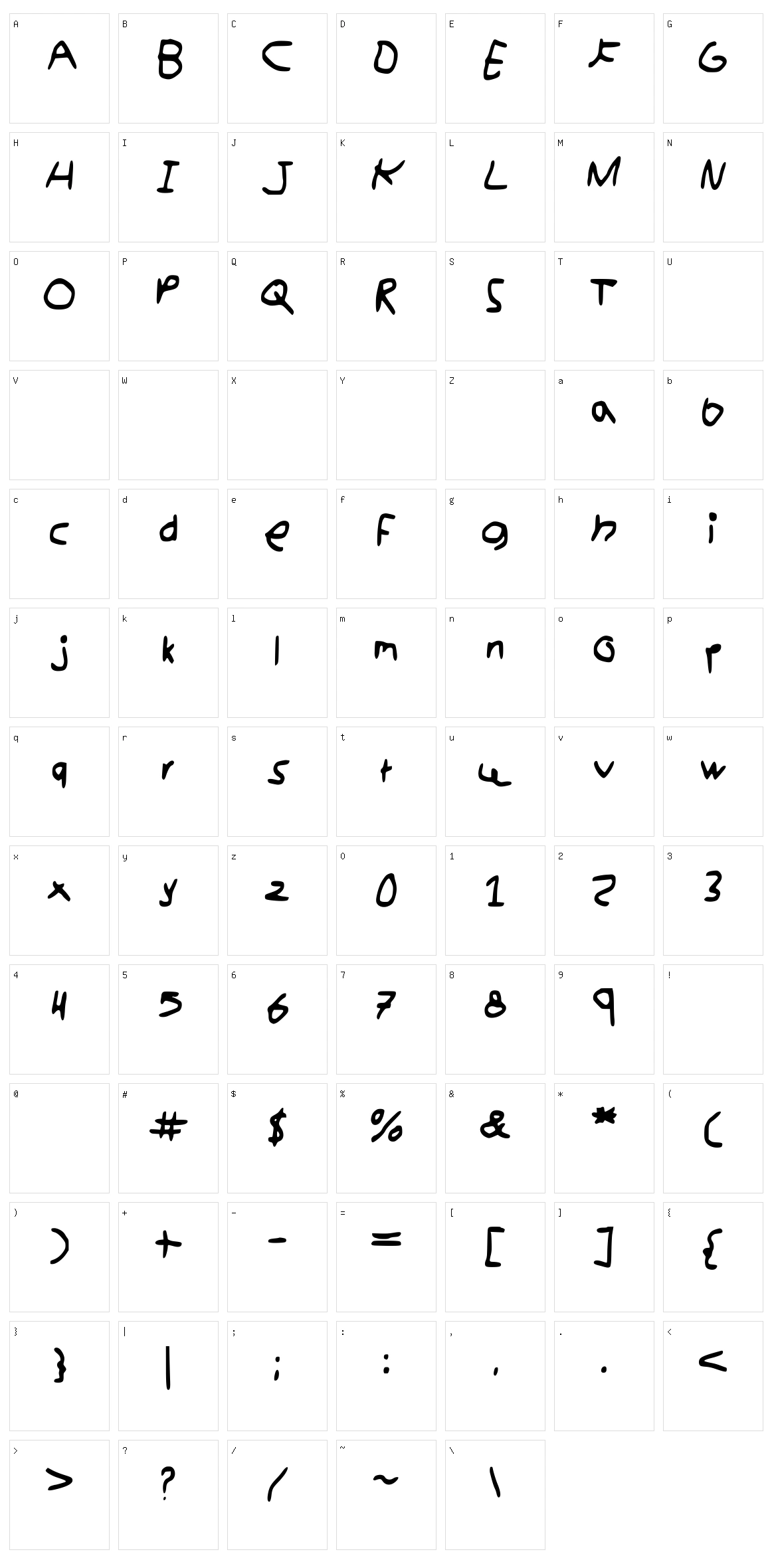
The free font Kidswritting is carefully designed by Antoine Boucher, showcasing a thoughtful balance of creativity and usability and falls under the Script font style. When you download the ZIP file, it contains only 13.5 KB of font files, making it lightweight and quick to download. Please review the license details below to understand permitted usage and distribution rights. If license information is not available, we recommend using this font for personal projects only or contacting the author directly for commercial usage permissions.